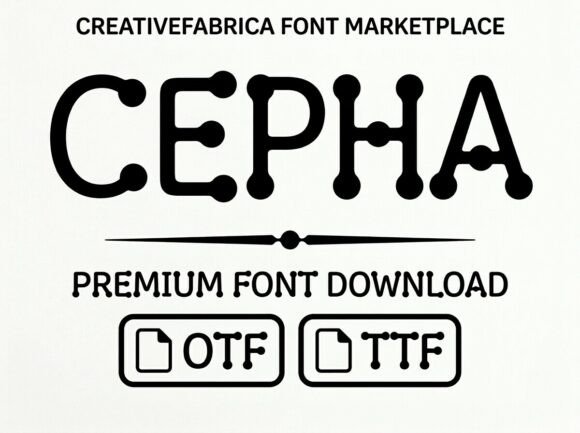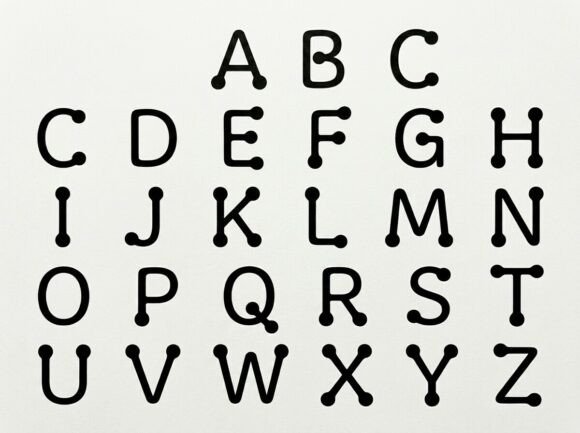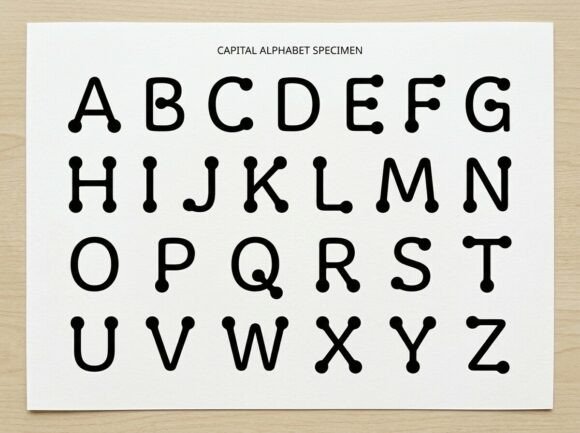
Introducing Cepha Font: Elevate Your Creative Projects with a Decorative Display Font
Are you tired of using the same old fonts for your creative projects? Do you want to make a statement and break away from the ordinary? Look no further than Cepha Font, a decorative display font designed to be the centerpiece of any layout. With its distinct artistic elements and strong character, Cepha Font is perfect for creators who want to add a touch of elegance and sophistication to their work.
What Makes Cepha Font Special?
Cepha Font is a unique and powerful tool for designers and crafters. Its bold and artistic design makes it perfect for a variety of applications, from bold headlines to creative branding and packaging. The font delivers a high-end, professional aesthetic without compromising on personality, making it ideal for projects that require a touch of luxury and sophistication.
Key Features of Cepha Font
• Distinct Artistic Elements: Cepha Font features distinct artistic elements that set it apart from other fonts. Its unique design makes it perfect for creators who want to add a touch of elegance and sophistication to their work.
• Strong Character: The font has a strong character that makes it perfect for bold headlines and creative branding and packaging.
• High-End Aesthetic: Cepha Font delivers a high-end, professional aesthetic without compromising on personality, making it ideal for projects that require a touch of luxury and sophistication.
Cepha Font is an All-Caps display typeface. By design, it does not contain lowercase letters, making it a powerful tool for logos, titles, and decorative initials.
Cepha Font is perfect for designers and crafters who want to add a touch of elegance and sophistication to their work. Whether you’re working on a logo, brochure, or packaging design, Cepha Font is the perfect choice. Its unique design and high-end aesthetic make it ideal for projects that require a touch of luxury and sophistication.
Tips for Using Cepha Font
• Use it for Headlines: Cepha Font is perfect for bold headlines and titles. Use it to make a statement and grab the attention of your audience.
• Pair it with Other Fonts: Cepha Font pairs well with other fonts. Use it in combination with a sans-serif font for a unique and elegant look.
• Experiment with Colors: Cepha Font looks great in a variety of colors. Experiment with different colors to find the perfect look for your project.
Cepha Font is a decorative display font designed to elevate your creative projects. With its distinct artistic elements and strong character, it is perfect for creators who want to break away from the ordinary. Whether you’re a designer or crafter, Cepha Font is the perfect choice for projects that require a touch of luxury and sophistication. So why wait? Download Cepha Font today and take your creative projects to the next level!